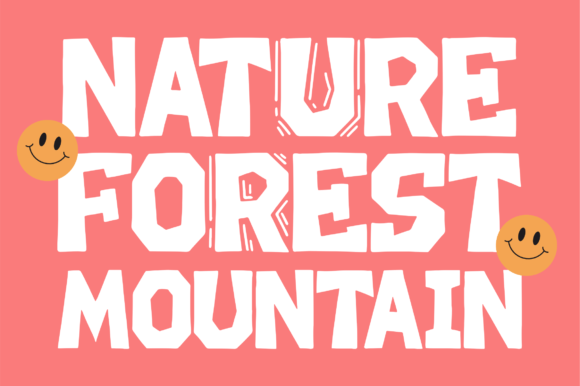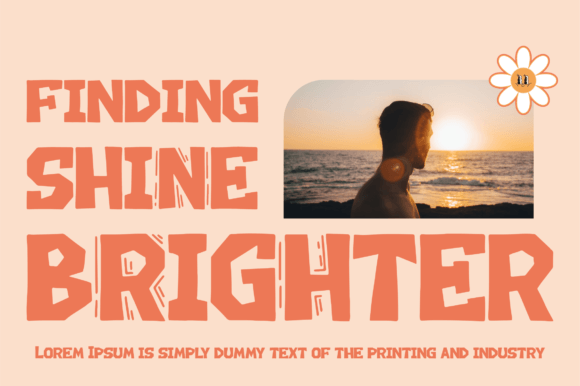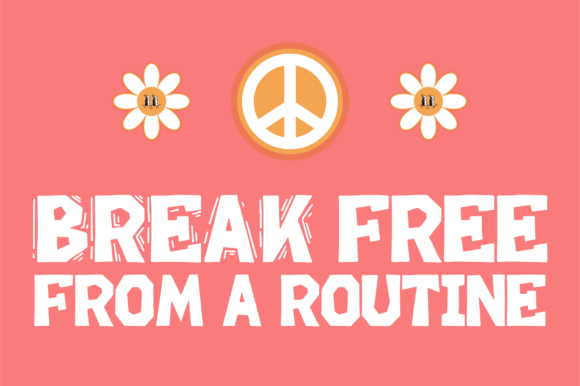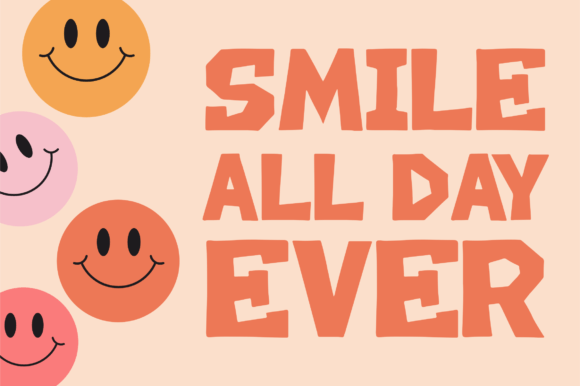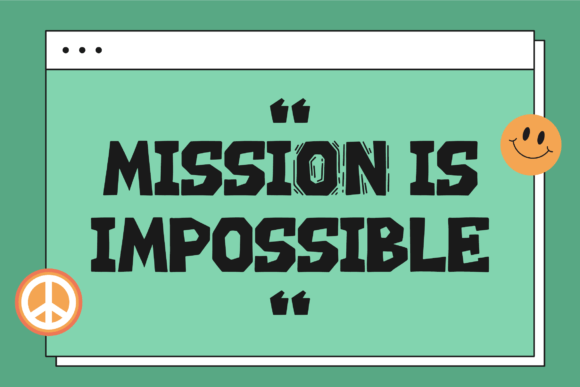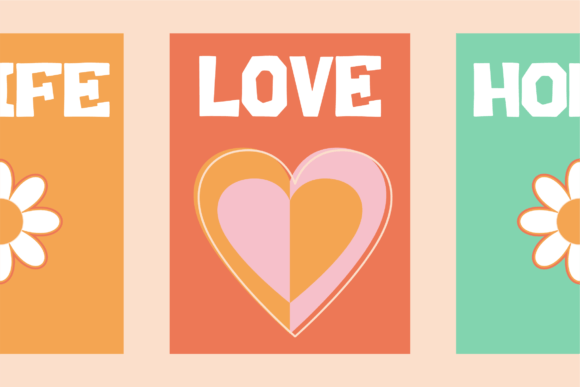
Gorine Flums Font: Add a Joyful Touch to Your Designs
Are you tired of using the same old fonts in your designs? Do you want to add a playful and quirky touch to your creative projects? Look no further than Gorine Flums, a cute and charming display font that’s sure to bring a smile to your face. In this article, we’ll take a closer look at Gorine Flums and explore how this beautiful font can elevate your designs and make them stand out.
What is Gorine Flums Font?
Gorine Flums is a unique and eye-catching display font that’s perfect for designers and crafters looking to add some personality to their work. This font is characterized by its playful and whimsical feel, making it ideal for projects that require a touch of fun and humor. Whether you’re working on a logo, poster, or social media graphic, Gorine Flums is sure to make your design pop.
Key Features of Gorine Flums Font
So, what makes Gorine Flums so special? Here are just a few key features that set this font apart:
- Cute and Quirky Design: Gorine Flums has a distinctly playful feel that’s sure to capture the attention of your audience.
- Display Font: This font is specifically designed for display purposes, making it perfect for headlines, titles, and other prominent text elements.
- Unique Character Set: Gorine Flums has a unique character set that includes a range of letters, numbers, and punctuation marks.
- Easily Readable: Despite its playful design, Gorine Flums is still easily readable, even at smaller sizes.
How to Use Gorine Flums Font in Your Designs
Now that we’ve covered the basics of Gorine Flums, let’s talk about how to use it in your designs. Here are a few ideas to get you started:
- Logos and Branding: Use Gorine Flums to create a fun and memorable logo for your business or brand.
- Posters and Flyers: Add a playful touch to your posters and flyers with Gorine Flums.
- Social Media Graphics: Use Gorine Flums to create eye-catching social media graphics that will help your posts stand out.
- Invitations and Cards: Add a personal touch to your invitations and cards with Gorine Flums.
Tips for Getting the Most Out of Gorine Flums
Here are a few tips for getting the most out of Gorine Flums:
- Experiment with Colors: Try pairing Gorine Flums with different colors to create a unique and eye-catching design.
- Play with Size: Experiment with different font sizes to create visual interest and hierarchy in your design.
- Combine with Other Fonts: Try pairing Gorine Flums with other fonts to create a unique and interesting combination.
Whether you’re a seasoned designer or just starting out, Gorine Flums is a great addition to any design project. Its playful and whimsical feel makes it perfect for a wide range of applications, from logos and branding to posters and social media graphics. So go ahead, get creative, and see how Gorine Flums can help take your designs to the next level!